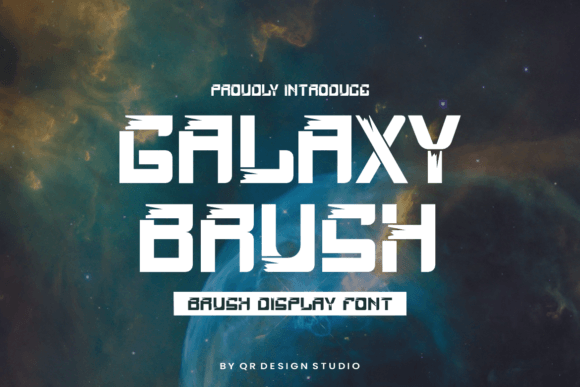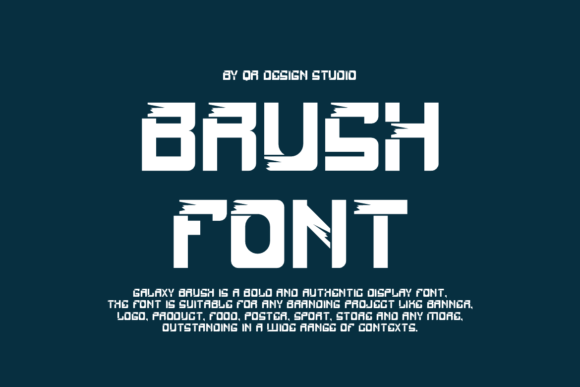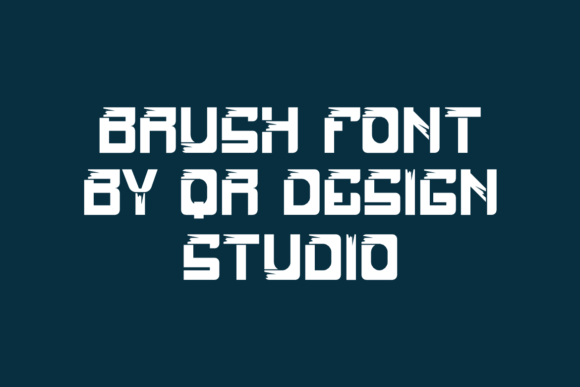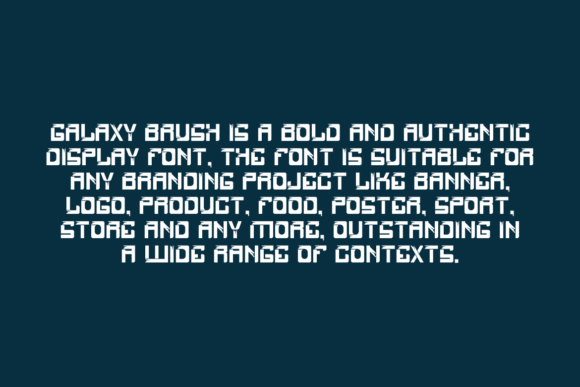
Galaxy Brush Font
About the Galaxy Brush Font
Get ready to be inspired by Galaxy Brush Font, a fresh and dynamic typeface for modern creators. Galaxy Brush is a unique and interesting decorative display font.  A little bit quirky, this font looks incredibly adept on a wide variety of contexts!
Galaxy Brush excels as a display font for headlines, short impactful statements, logos, and branding elements where a bold, quirky personality is desired. Its unique character shines in posters, social media graphics, and packaging designs that benefit from a hand-painted, slightly whimsical aesthetic. However, its decorative nature makes it unsuitable for body text or UI elements requiring high readability.
Pairing Galaxy Brush with a clean sans-serif like Open Sans for body copy provides excellent contrast, allowing the display font to stand out. For a more sophisticated look, consider pairing it with a classic serif like Garamond, balancing its playful energy with refined elegance. Alternatively, a geometric sans-serif like Futura can create a modern and striking combination.
The font’s core personality is bold and playful, yet maintains a friendly approachability. It’s ideal for brands targeting a young, creative audience or projects emphasizing fun and originality.
Galaxy Brush Font Usage Examples
Galaxy Brush Font Example